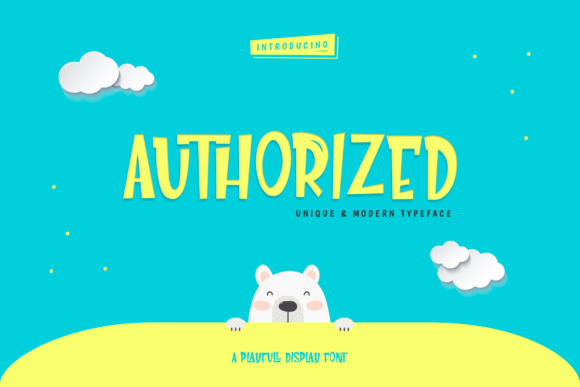
The Joy of Authorized Font: Elevating Your Designs with a Cute and Modern Display Font
I’ll never forget the moment I stumbled upon the perfect font for a client’s branding project. I had been searching for what felt like hours, trying out font after font, but nothing seemed quite right. That was until I discovered Authorized, a cute and modern display font that instantly brought the project to life. In this article, I’ll share my experience with Authorized, its features, and how to make the most of it in your designs.
A Personal Review: What I Love About Authorized
Authorized has quickly become one of my go-to fonts for adding a touch of joy to my designs. Here are a few things I love about it:
• ✨ Cute and modern aesthetic: Authorized has a fresh and playful vibe that’s perfect for designs that need a bit of personality.
• ✅ Highly legible: Despite its decorative nature, Authorized remains clear and easy to read, even at smaller sizes.
• 💡 Versatile: This font can be used for a wide range of projects, from branding and advertising to packaging and digital media.
While Authorized is an excellent font, there are a few minor quirks to be aware of:
• 🤔 Limited suitability for body text: Due to its decorative nature, Authorized may not be the best choice for longer blocks of text.
• ⚠️ Some glyphs may require manual adjustment: Depending on the context, certain glyphs may need to be adjusted manually to ensure optimal spacing and alignment.
The Story Behind Authorized: Designer Inspiration
While the true story behind Authorized may be unknown, it’s easy to imagine that the designer was inspired by the world of modern advertising and branding. Perhaps they sought to create a font that would bring a smile to people’s faces, while also conveying a sense of sophistication and style.
What type of projects is Authorized best suited for? Authorized is perfect for branding, advertising, packaging, and digital media projects that require a modern, playful touch.
Can I use Authorized for body text? While Authorized is highly legible, it may not be the best choice for longer blocks of text. Consider using a complementary font for body text.
Is Authorized suitable for use on mobile devices? Yes, Authorized is optimized for use on mobile devices and will look great on a variety of screen sizes and resolutions.
With its unique blend of modern style and playfulness, Authorized is sure to become a favorite font in your collection. Whether you’re working on a branding project, crafting a social media graphic, or simply looking for a fresh perspective, Authorized is an excellent choice.